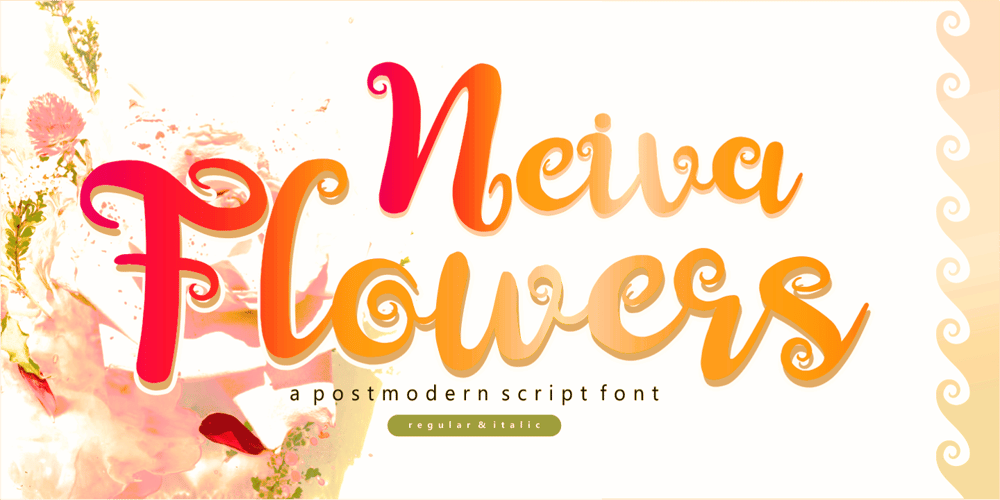
Neiva Flowers
Neiva Flowers font
Neiva Flowers Font Family was designed by Muhammad Nazarudin and published by Niznaztype. Neiva Flowers contains 2 styles and family package options. Thanks for checking my font’s work, Neiva Flowers typeface. It’s postmodern script font. Neiva Flowers have a feminism styles and ethnic curves. Very perfect for adding unique and slegant character to your branding project. Also, Neiva Flowers font is suitable for wedding lettering, beautiful touch in your all graphic design. This font have two styles, regular and italic. It contains a full set of lowercase, uppercase, punctuation, numeral and multilingual support.Neiva Flowers typeface also can support your design to be more better. You can use it in lettering, wall painting, cover, advertising, invitation, card, feminism design, script lettering design and more.